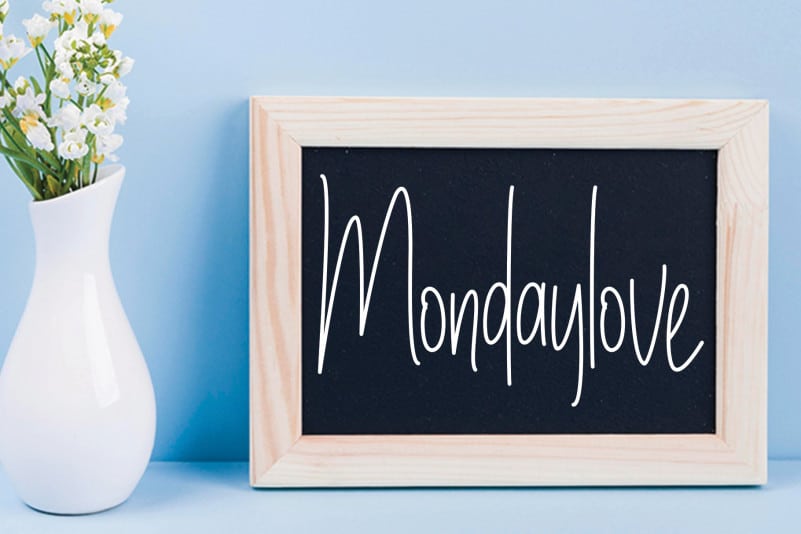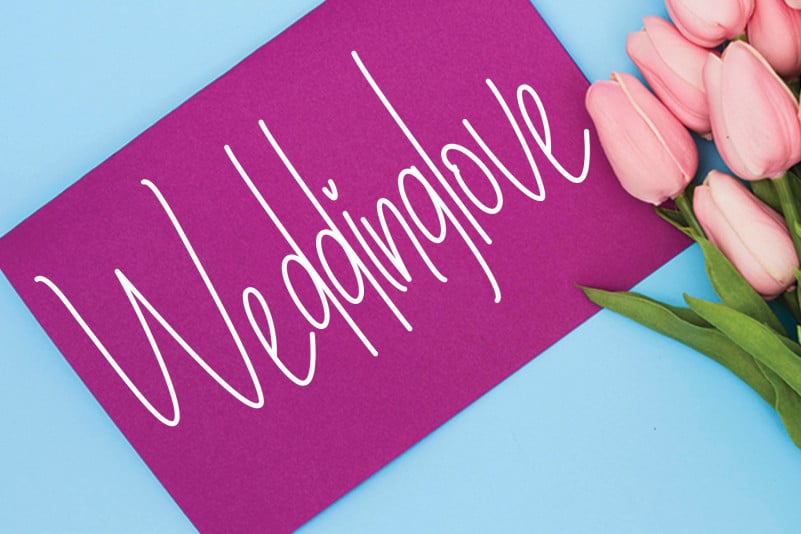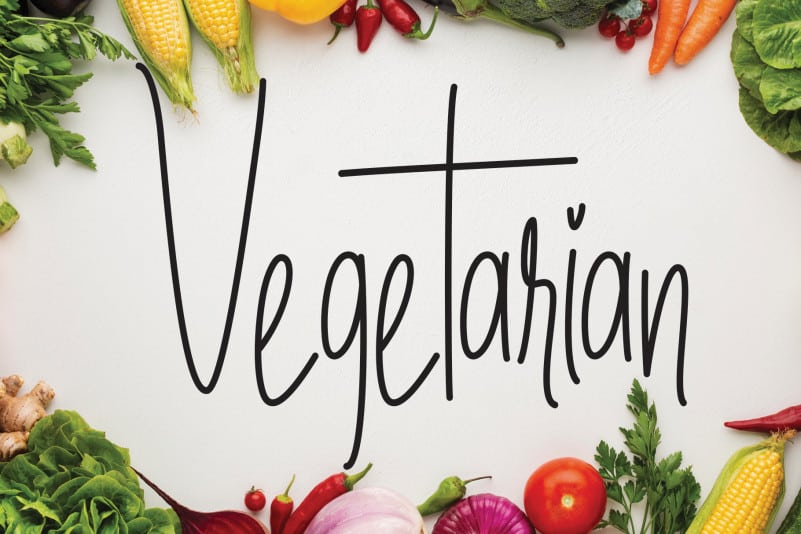
Creativenottes Handwritten Font
Introducing Creativenottes Handwritten Font. The latest style letters are perfect for wall displays, wedding invitations, social media post logos, advertisements, product packaging, product designs, labels, photography, watermarks, invitations, stationery, and any project that requires taste handwriting.